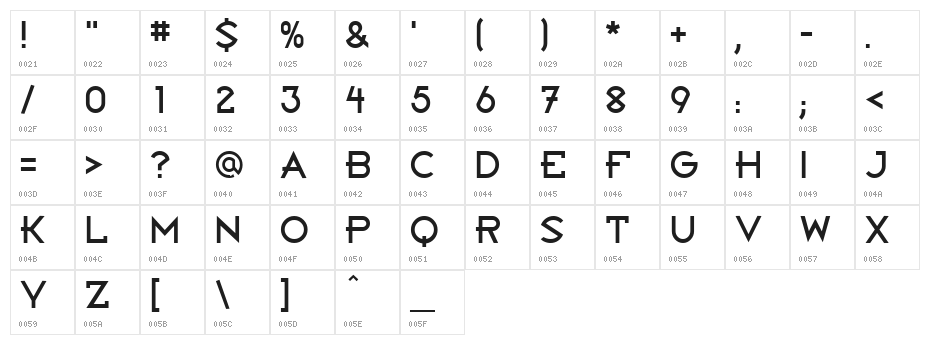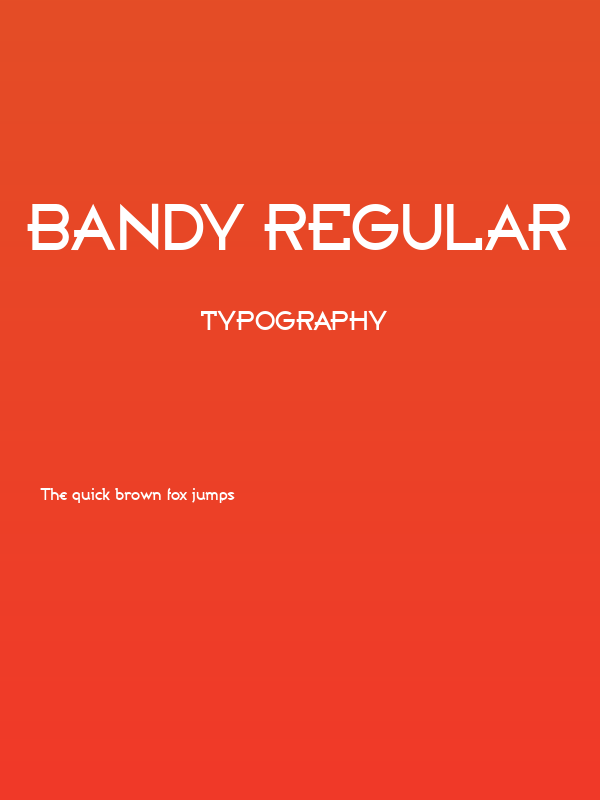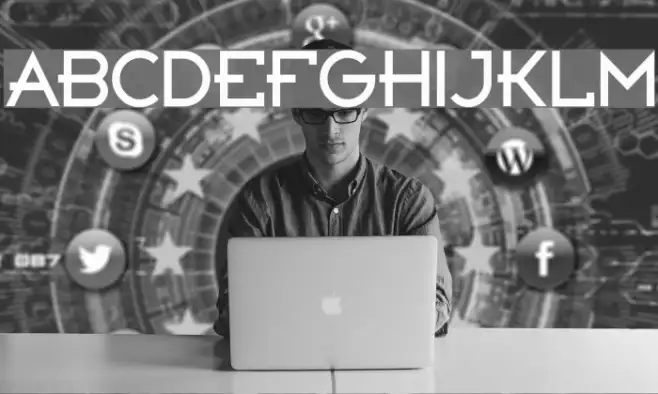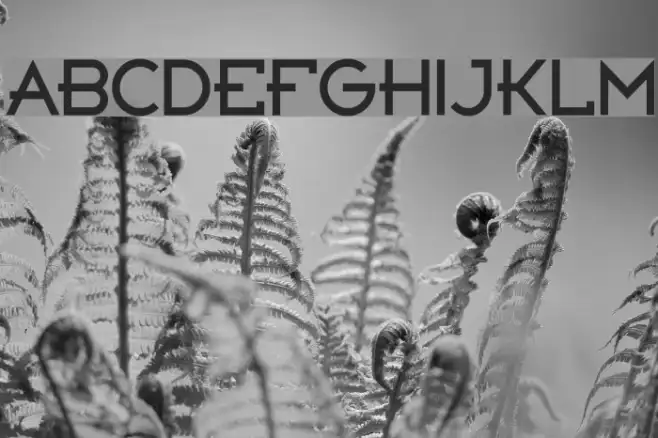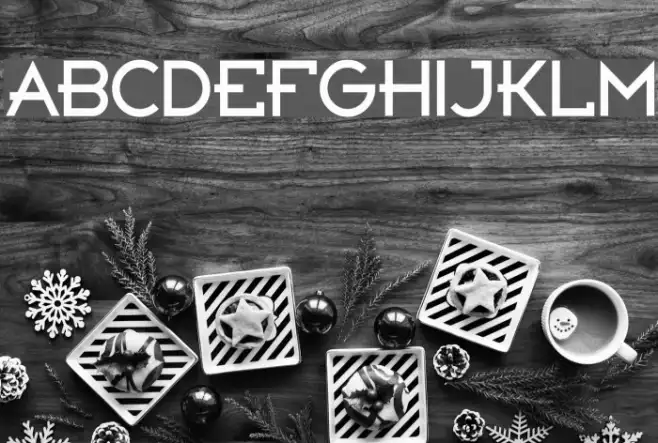
Bandy Regular Font
Bandy Regular Description
This font features a bold and geometric design with clean, sharp lines and a modern aesthetic. The uppercase letters are distinct with a strong presence, while the lowercase letters maintain a consistent style that complements the uppercase. The numerals are clear and easy to read, making them suitable for various applications. Special characters are well-integrated, maintaining the overall geometric theme. The font's uniformity and balance make it versatile for both digital and print media.